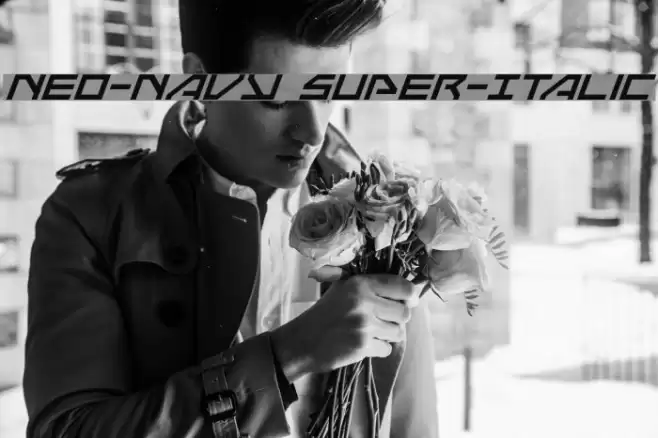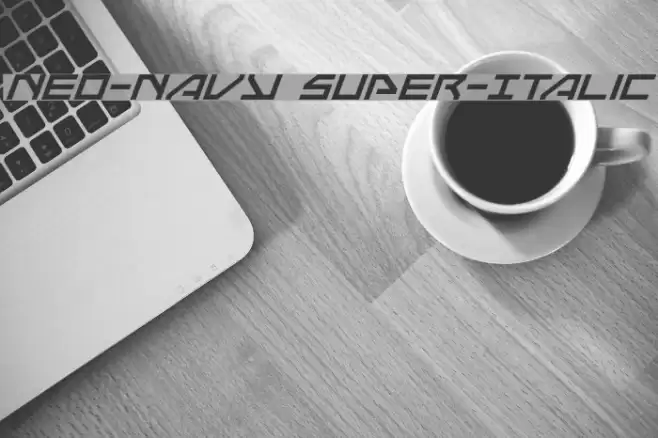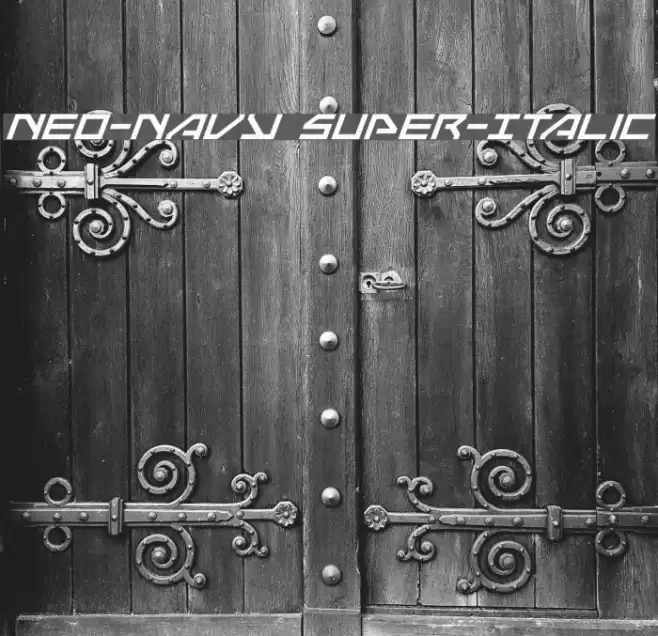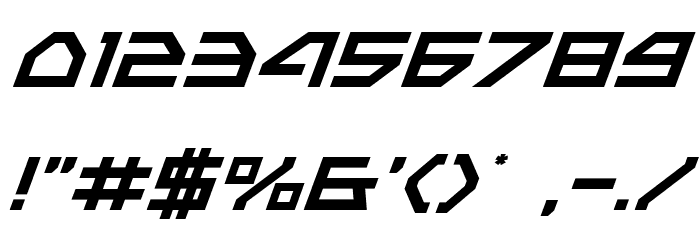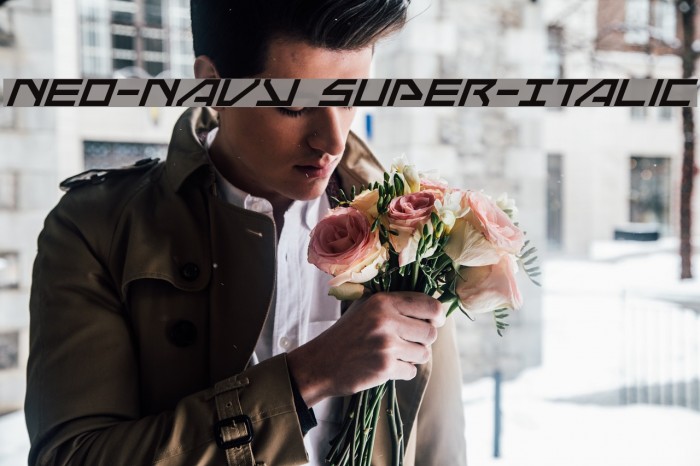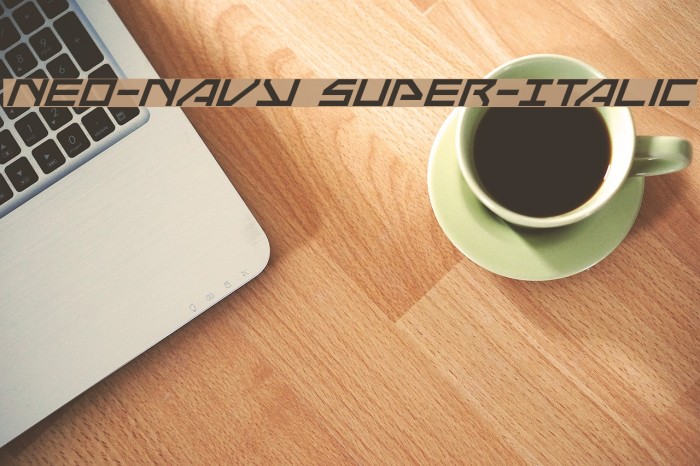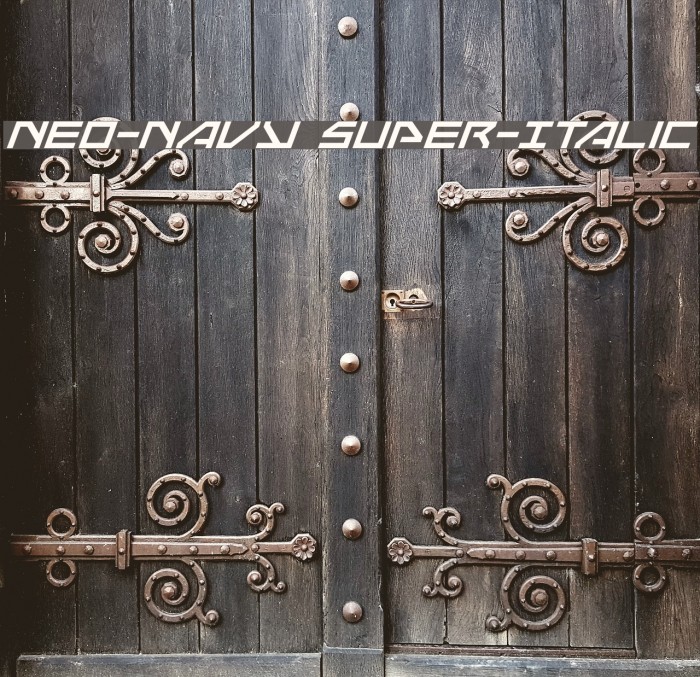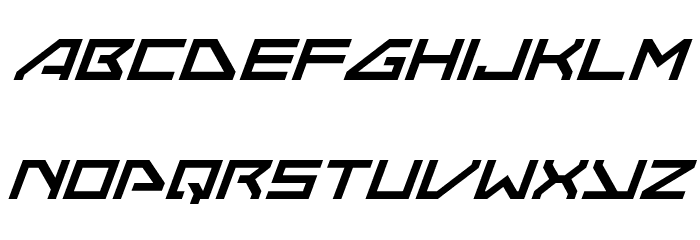
Neo-Navy Super-Italic Font
Neo-Navy Super-Italic Description
This font features a bold, angular design with a futuristic and dynamic appearance. The characters are italicized, giving a sense of motion and speed. The geometric shapes and sharp edges create a modern and edgy look, suitable for projects that require a strong visual impact. The uppercase and lowercase letters maintain a consistent style, while the numerals and special characters complement the overall aesthetic. The font's unique style makes it ideal for branding, advertising, and digital media.
A bold, angular, and italicized font with a futuristic and dynamic style from Uncategorized fonts.
- Proposed Projects: Ideal for branding, advertising, digital media, and projects requiring a strong visual impact.